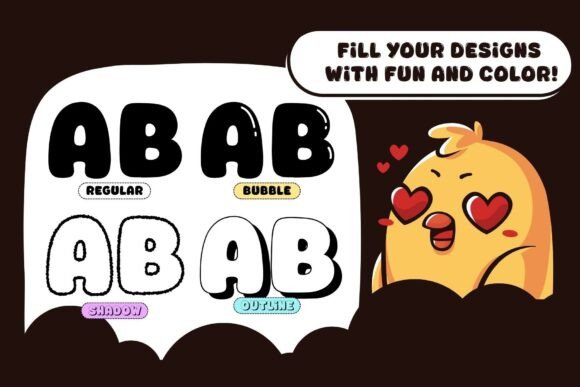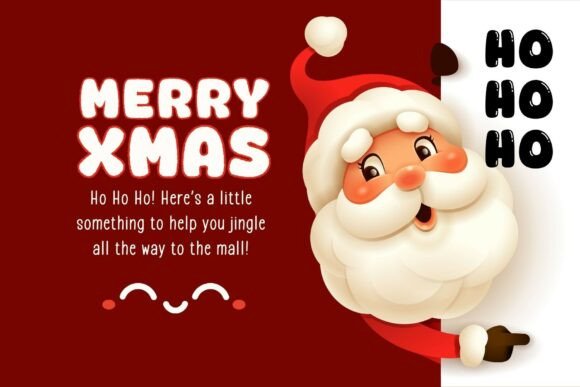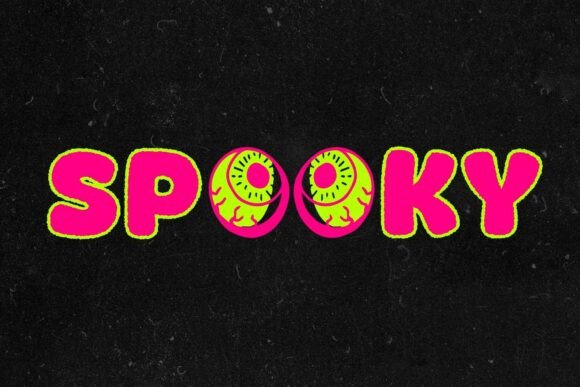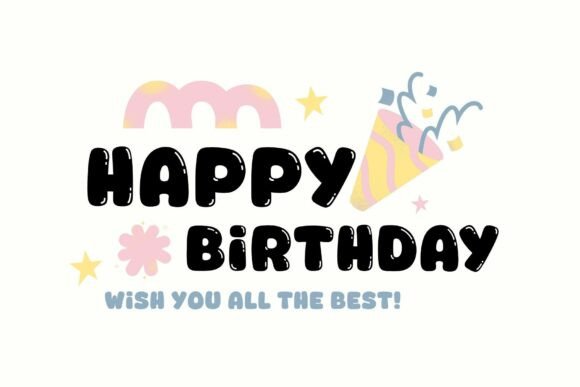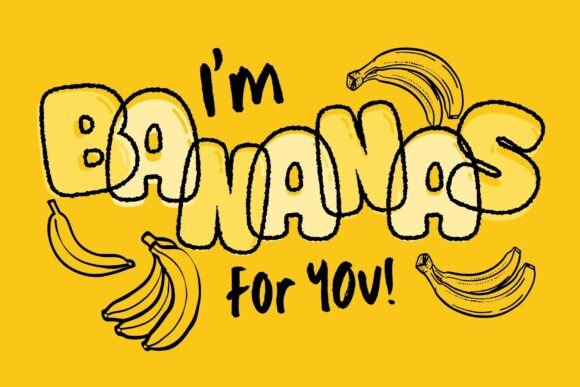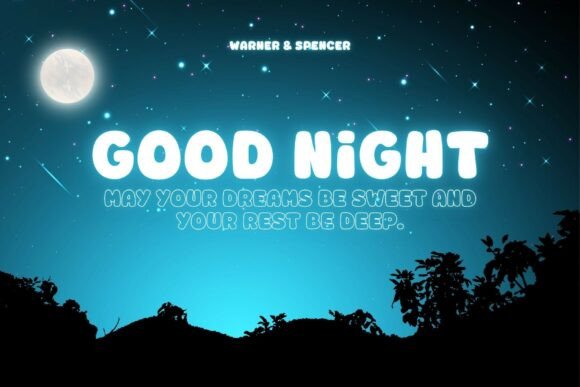
Unleash the Fun with Fox Jumbo Font Family!
Ah, the elusive perfect font – you know, that one magical typeface that instantly elevates your design from meh to mesmerizing. I’ve been there, done that, and got the t-shirt (which, coincidentally, was designed with a fabulous font). But today, I’m super excited to share with you a delightful discovery that’s been making my design projects pop – the Fox Jumbo Font Family! 🦊
First Impressions Matter
Imagine you’re working on a children’s book, and you need a font that’s not just fun but also friendly and engaging. Or perhaps you’re designing a poster for a kids’ event, and you want something that screams playful and energetic. That’s where Fox Jumbo comes in – this charming, plump bubble font is like a breath of fresh air for your designs.
What I Love About Fox Jumbo ✨
- ✅ Versatility: It comes with 4 fantastic font styles – REGULAR, BUBBLE, SHADOW, and OUTLINE – giving you maximum creative flexibility.
- ✅ Playful Aesthetic: The bold, rounded letters and bouncy shapes instantly add a happy and cheerful vibe to any design.
- ✅ Easy to Read: Despite its playful nature, Fox Jumbo remains clear and readable, even at smaller sizes.
- ✅ Wide Range of Applications: From children’s books and educational materials to t-shirt designs, posters, and social media graphics – Fox Jumbo is incredibly versatile.
Small Quirks or Limitations? 🤔
While Fox Jumbo is a delightful font, there are a couple of things to keep in mind:
- ⚠️ Legibility at Small Sizes: While generally readable, some of the more intricate details might get lost at very small sizes.
- ⚠️ Overuse: Given its playful nature, it’s easy to overuse Fox Jumbo. Balance is key to keeping your design fresh.
The Story Behind Fox Jumbo
Fox Jumbo was designed with one goal in mind: to bring a delightful burst of fun and color to your designs. Inspired by the playful and whimsical world of children’s books and cartoons, this font family was crafted to make your designs pop with a friendly, bubbly aesthetic.
Q: Is Fox Jumbo suitable for body text?
A: While Fox Jumbo is primarily designed for headlines and display text, it can be used for short paragraphs of body text, especially in children’s materials or where a playful tone is desired.
Fox Jumbo Font Family is a delightful addition to any designer’s toolkit. Its playful, bubbly aesthetic and versatility make it perfect for a wide range of projects. Give it a try and watch your designs come to life with a burst of fun and color! 🧡